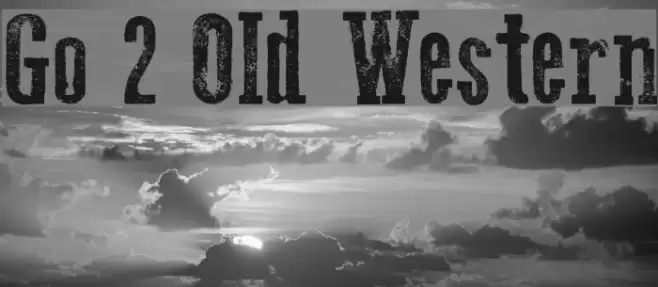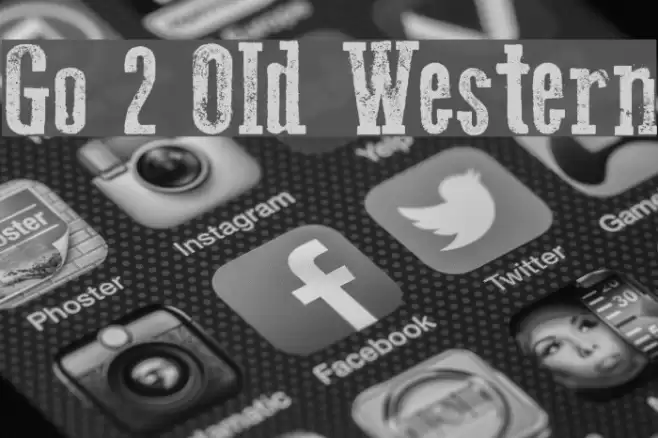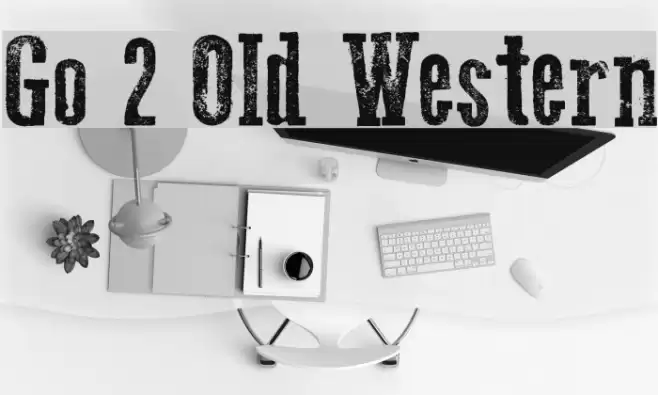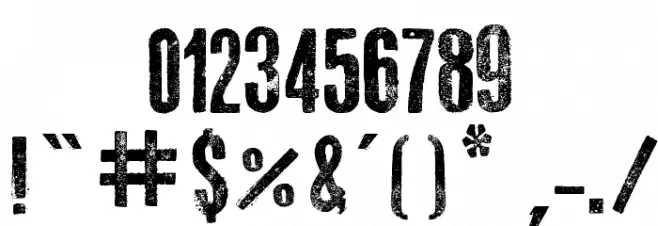
Go 2 Old Western Font
Go 2 Old Western Description
This font exudes a rugged, vintage charm reminiscent of the Old West. Its bold, distressed appearance gives it a weathered look, as if it has been exposed to the elements over time. The characters are robust and sturdy, with thick strokes and a slightly uneven texture that adds to its rustic appeal. The uppercase and lowercase letters maintain a consistent style, while the numerals and special characters complement the overall aesthetic. This font is perfect for projects that require a touch of nostalgia and a strong visual impact.
A bold, distressed font with a vintage Old West aesthetic from Uncategorized fonts.
- Proposed Projects: Ideal for posters, signage, branding, and themed events that require a vintage or Western feel.
- Overall Style: Vintage